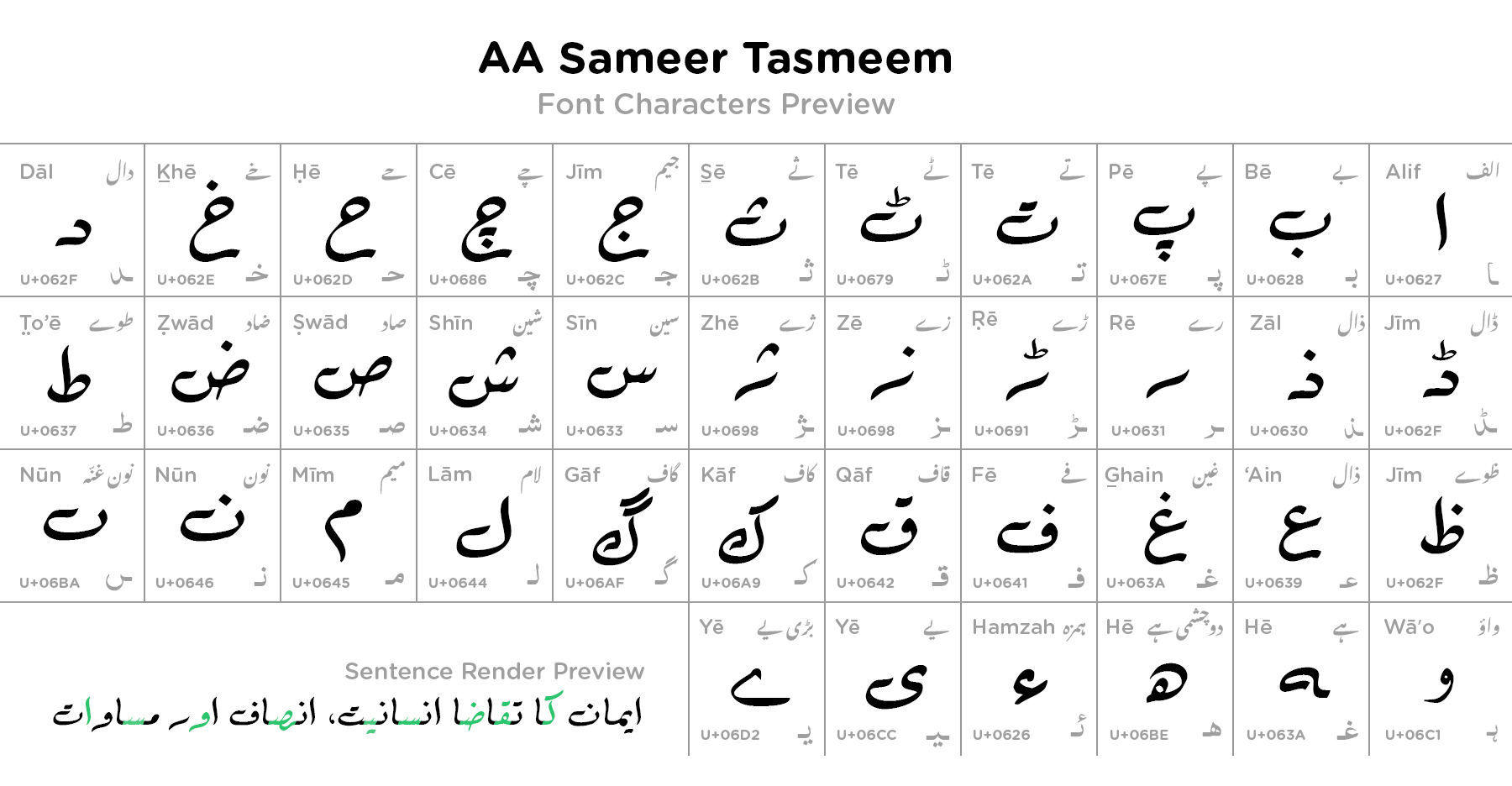
AA Sameer Tasmeem
Ruqaa -
The AA Sameer Tasmeem Bold is a bold and stylish Arabic font designed by well-known tape designer AA Sameer. It provides a strong visual presence with modern aesthetics. The well-separated and bold characters of this distinctive font give readers a strong and striking impression and catch their attention. It has a vast character set comprising 400 letters and symbols with 395 glyphs. It draws inspiration from traditional Urdu calligraphy with flowing letterforms and connected characters. The strokes are generally rounder and more delicate, giving it a softer and more inviting feel. The font maintains good readability despite its stylistic elements, making it suitable for a wider range of applications. The typography of this font allows it to be used in headings, subheadings, headlines, banners, posters, and branding materials adding a stylish vibe and also being widely appreciated by the designers. As the font name has an Arabic influence, it can be used in Arabic writing and other related languages.
Font Family AA Sameer Tasmeem
Font Developer AA Sameer